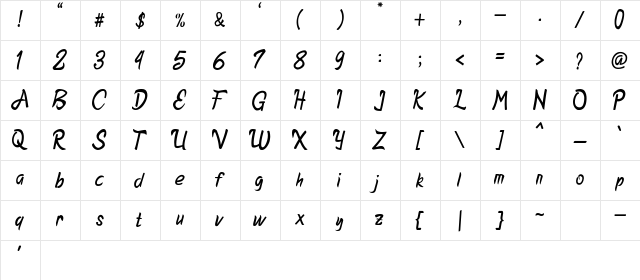
Alabastha Regular
| Designer | Wahyu Saputra |
Design Context for Alabastha Typeface
Alabastha is a composed and adaptable typeface that performs quietly and consistently across a wide range of design contexts.